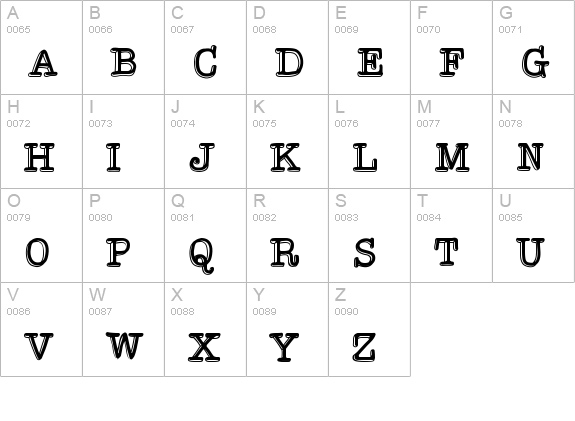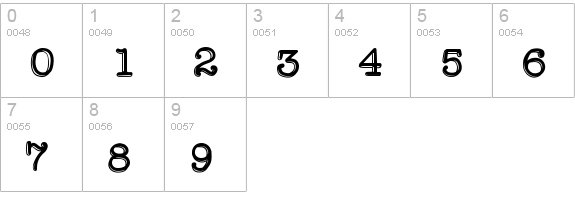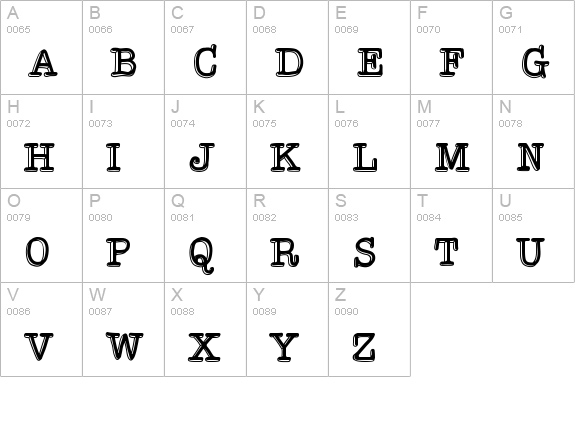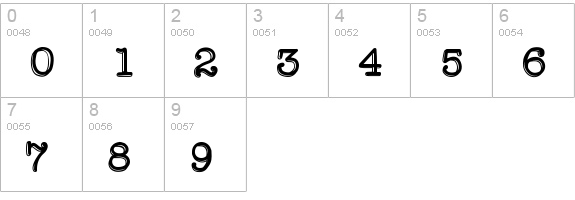
Introducing HypersoberClean, a remarkable font that effortlessly combines sleek sophistication with a minimalistic aesthetic. This font is the epitome of modern design, exuding an air of elegance and refinement that is sure to captivate any audience. With its clean lines and impeccable precision, HypersoberClean is a versatile typeface that can be used for a wide range of design projects. Whether you're creating a logo, designing a website, or crafting a promotional material, this font will effortlessly elevate your work to new heights. One of the standout features of HypersoberClean is its ability to convey a sense of professionalism and clarity. Each letter is meticulously crafted to perfection, ensuring that every word you create is visually striking and easily readable. The font's balanced proportions and carefully tailored curves make it a joy to work with, allowing you to effortlessly bring your creative vision to life. What sets HypersoberClean apart from other fonts is that it is freely available to download at FontsMarket.com. Yes, you read that right - this exceptional font can be yours at no cost. With just a few simple clicks, you can enhance your design projects without breaking the bank. FontsMarket.com offers a wide range of high-quality fonts, and HypersoberClean is just one shining example of the incredible selection available. So why wait? Experience the power and beauty of HypersoberClean for yourself. Download this font today and unlock a world of possibilities for your design projects. Whether you're a professional designer or a budding creative, HypersoberClean is the perfect addition to your font collection. Discover the freedom of expression and creativity that this font offers, and watch as your designs come to life with unparalleled elegance and sophistication.